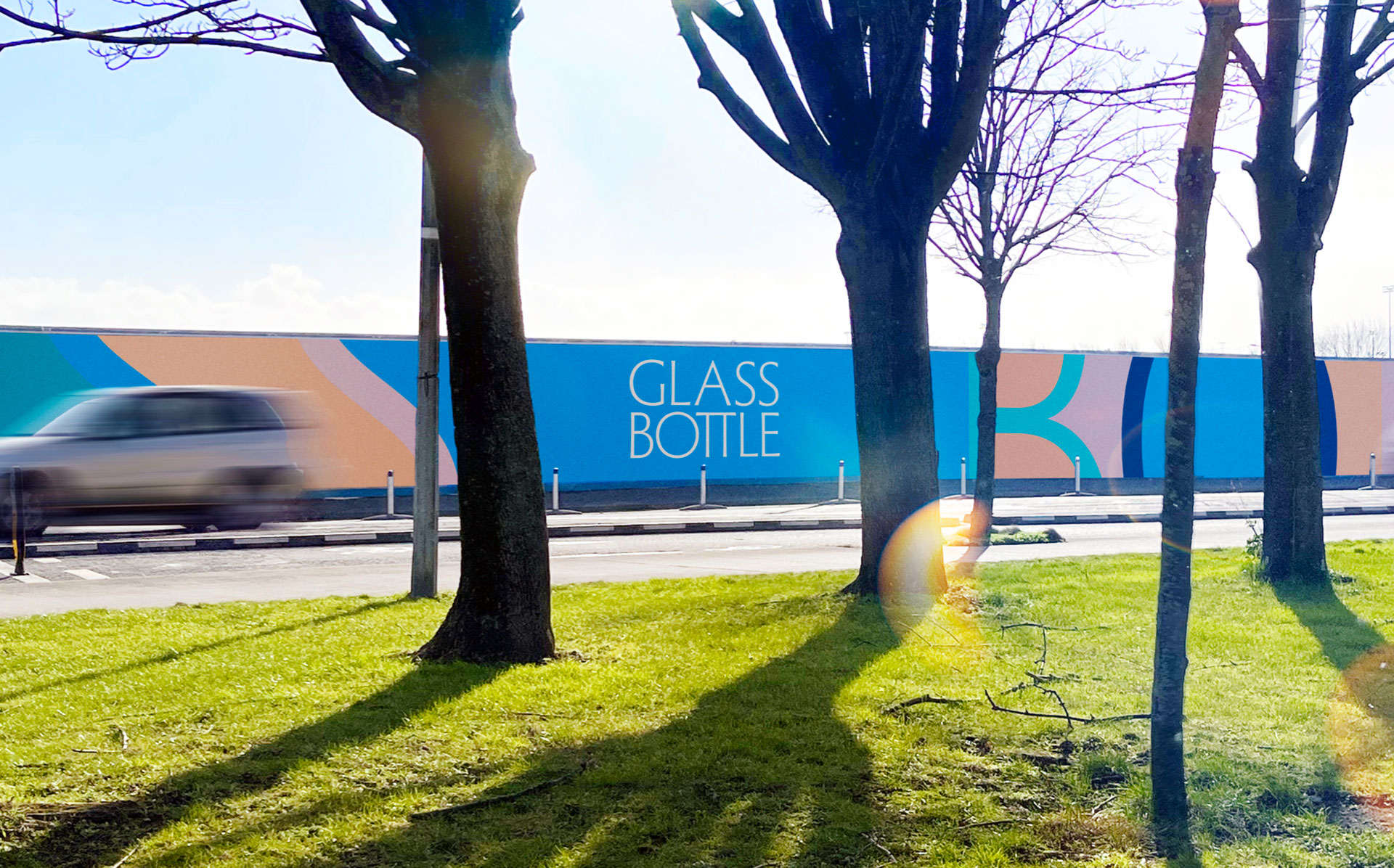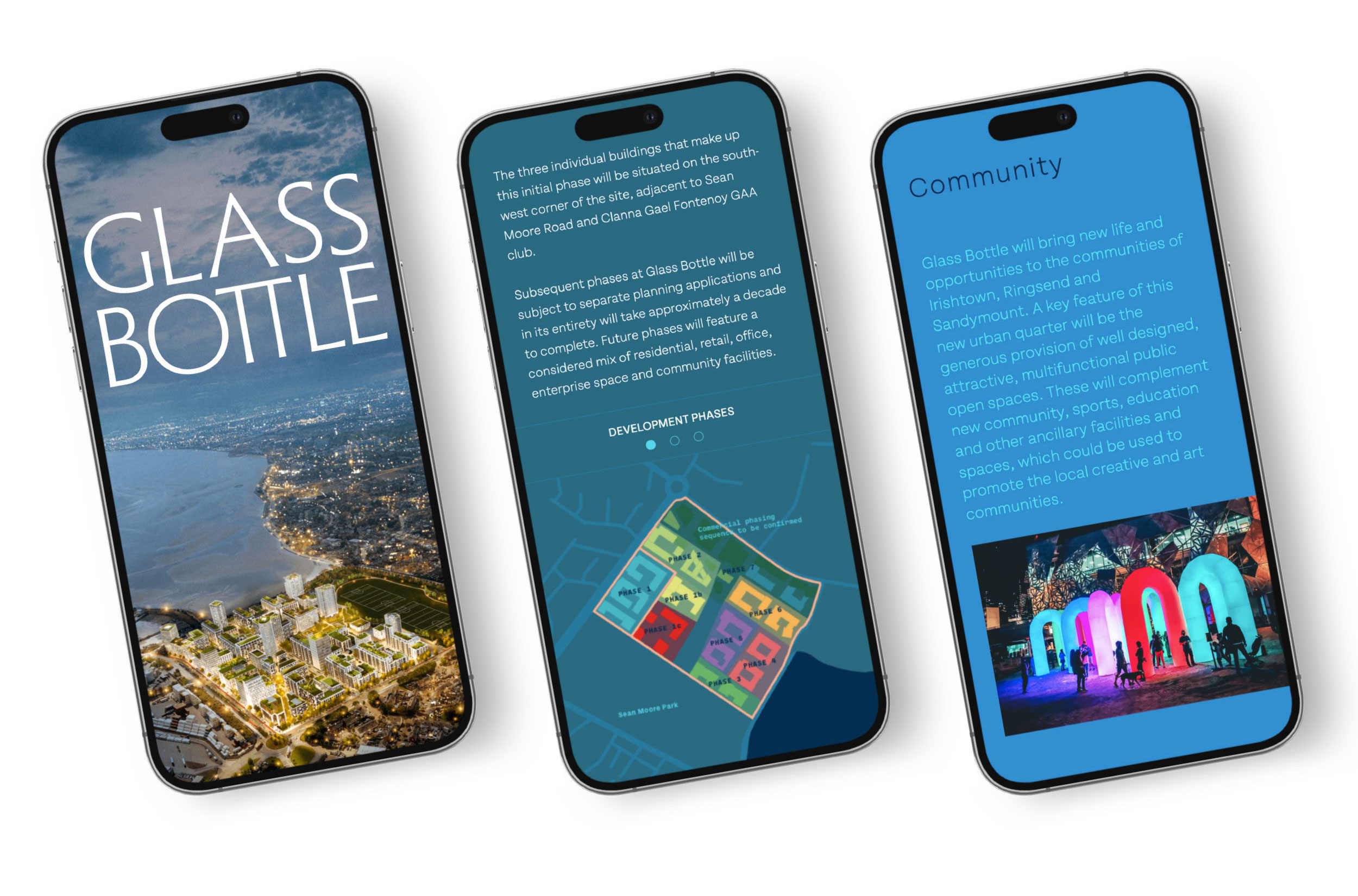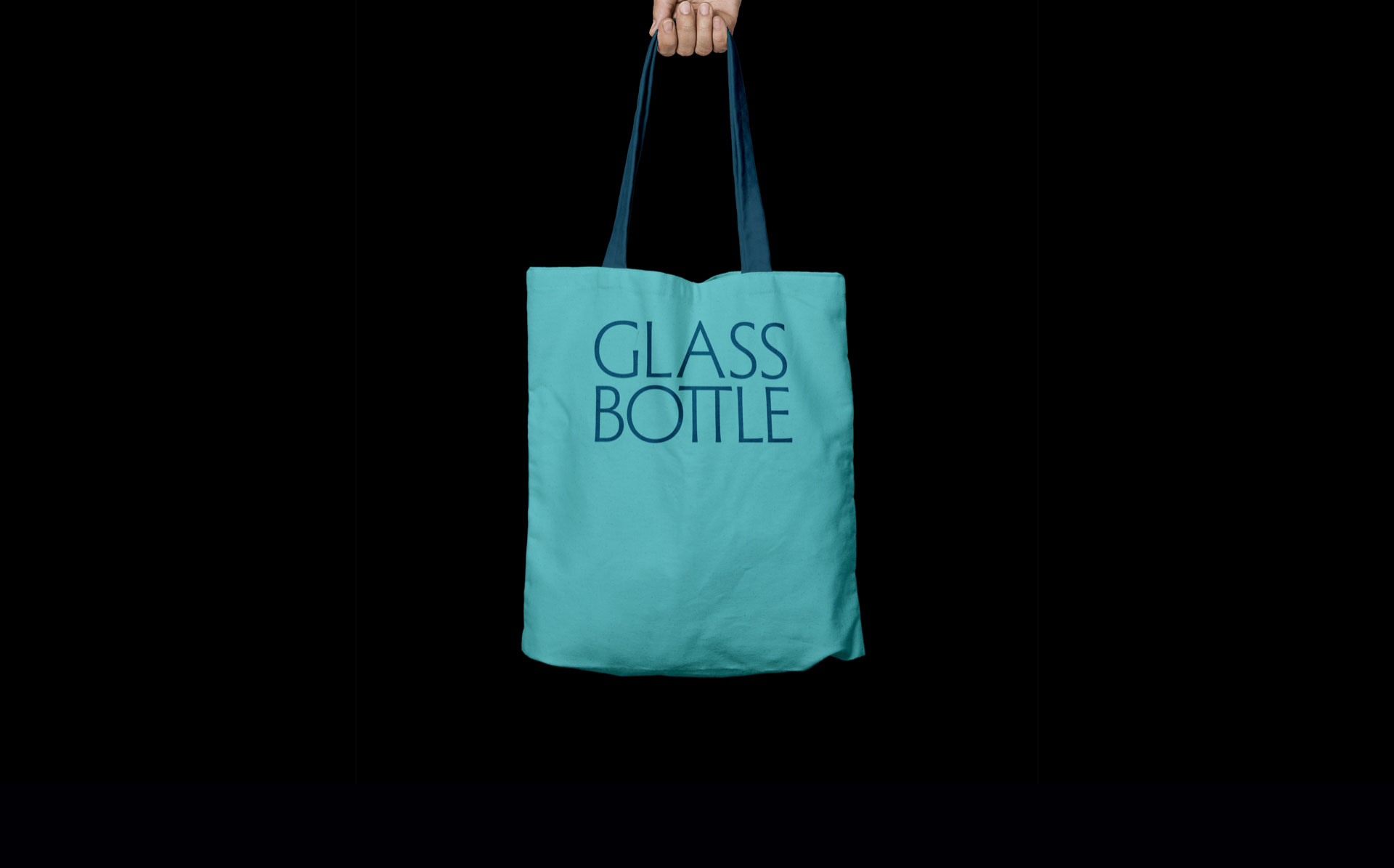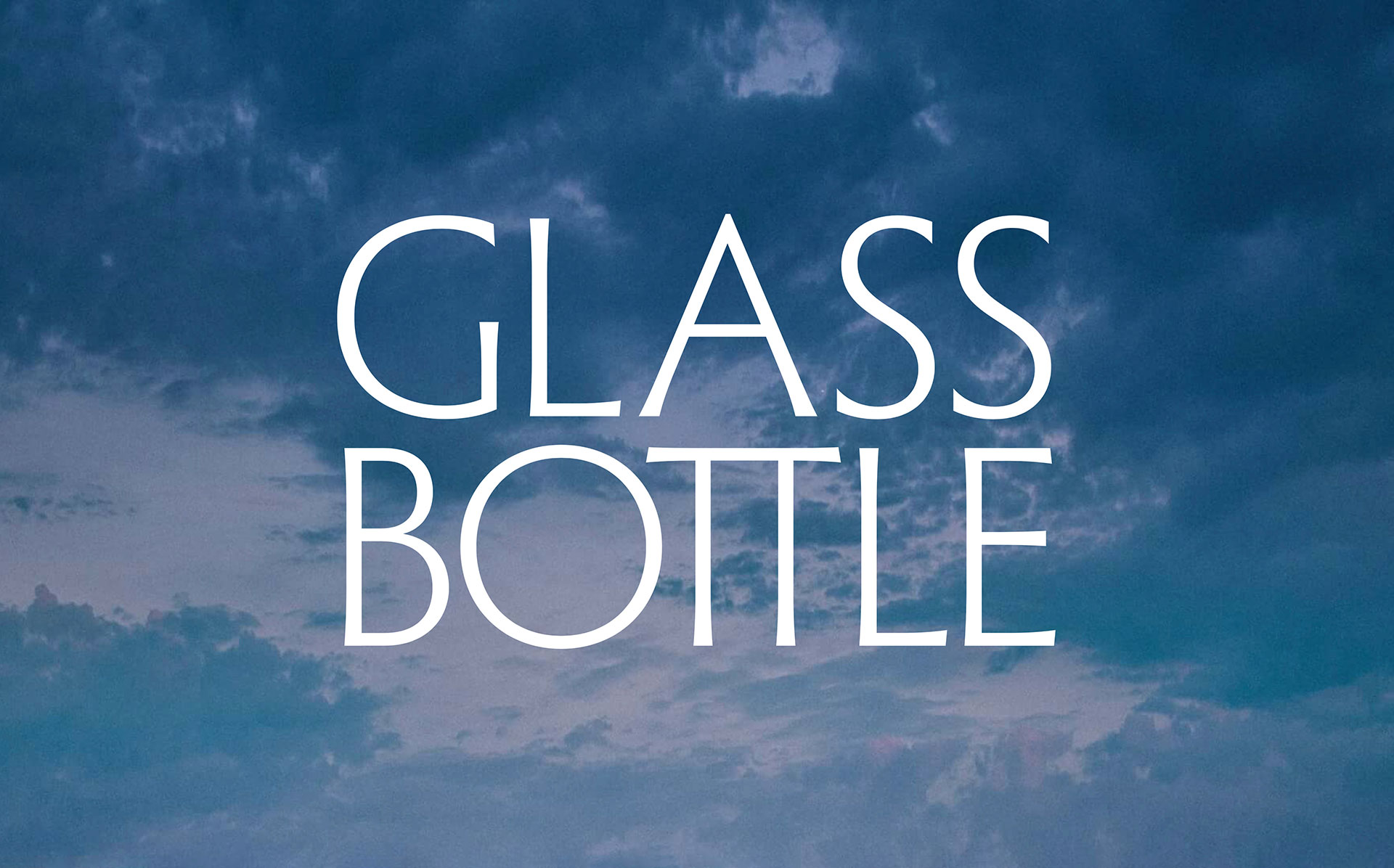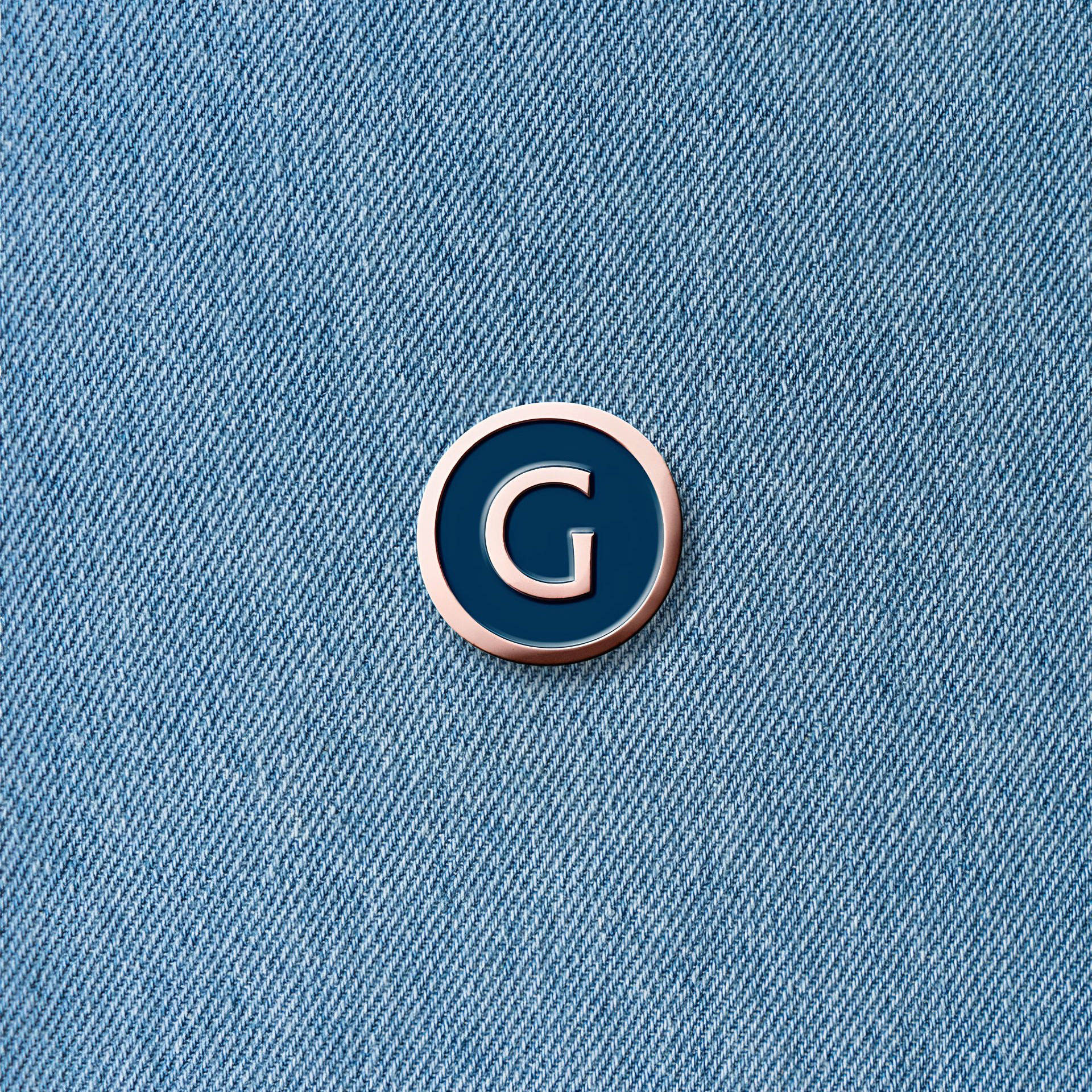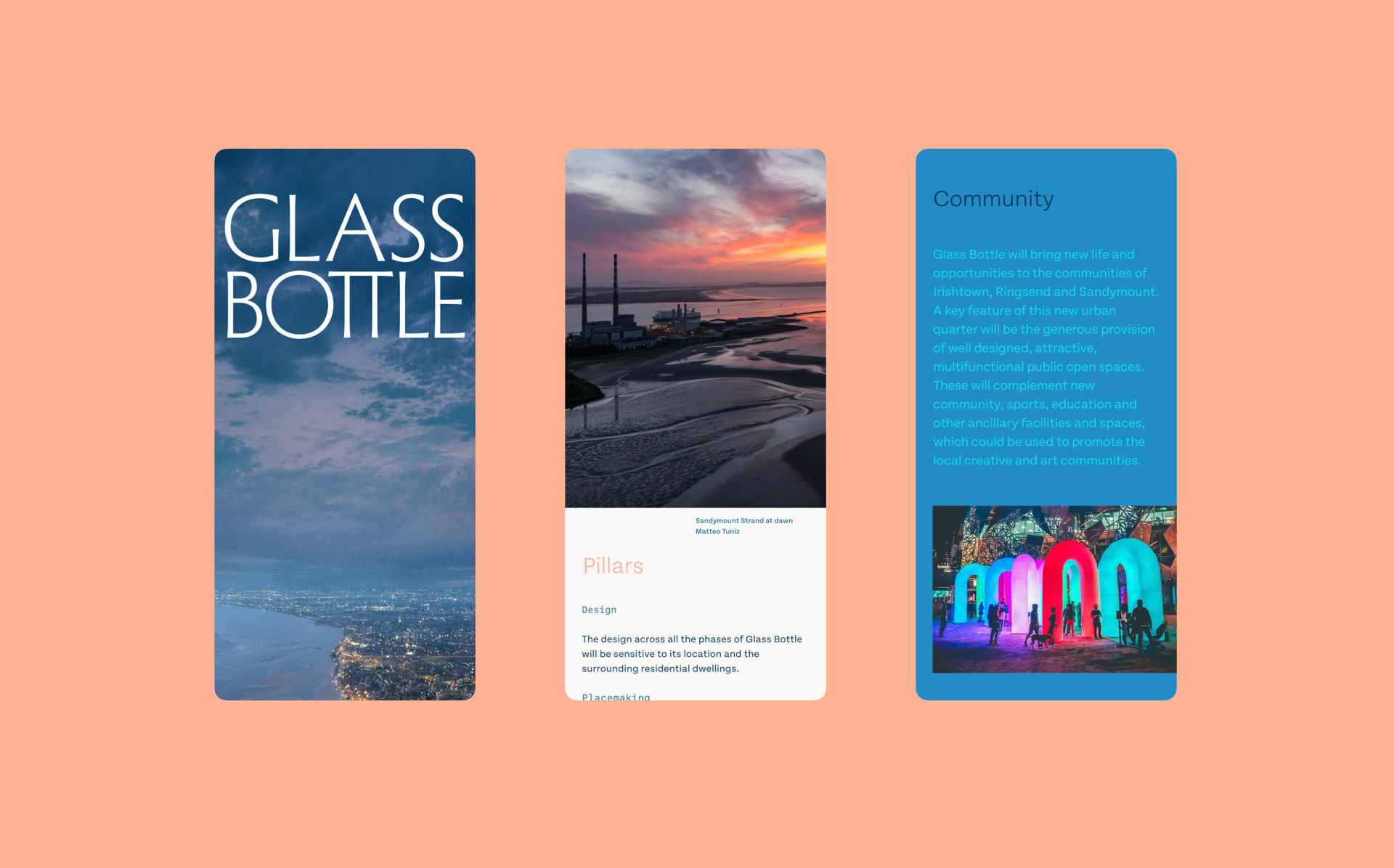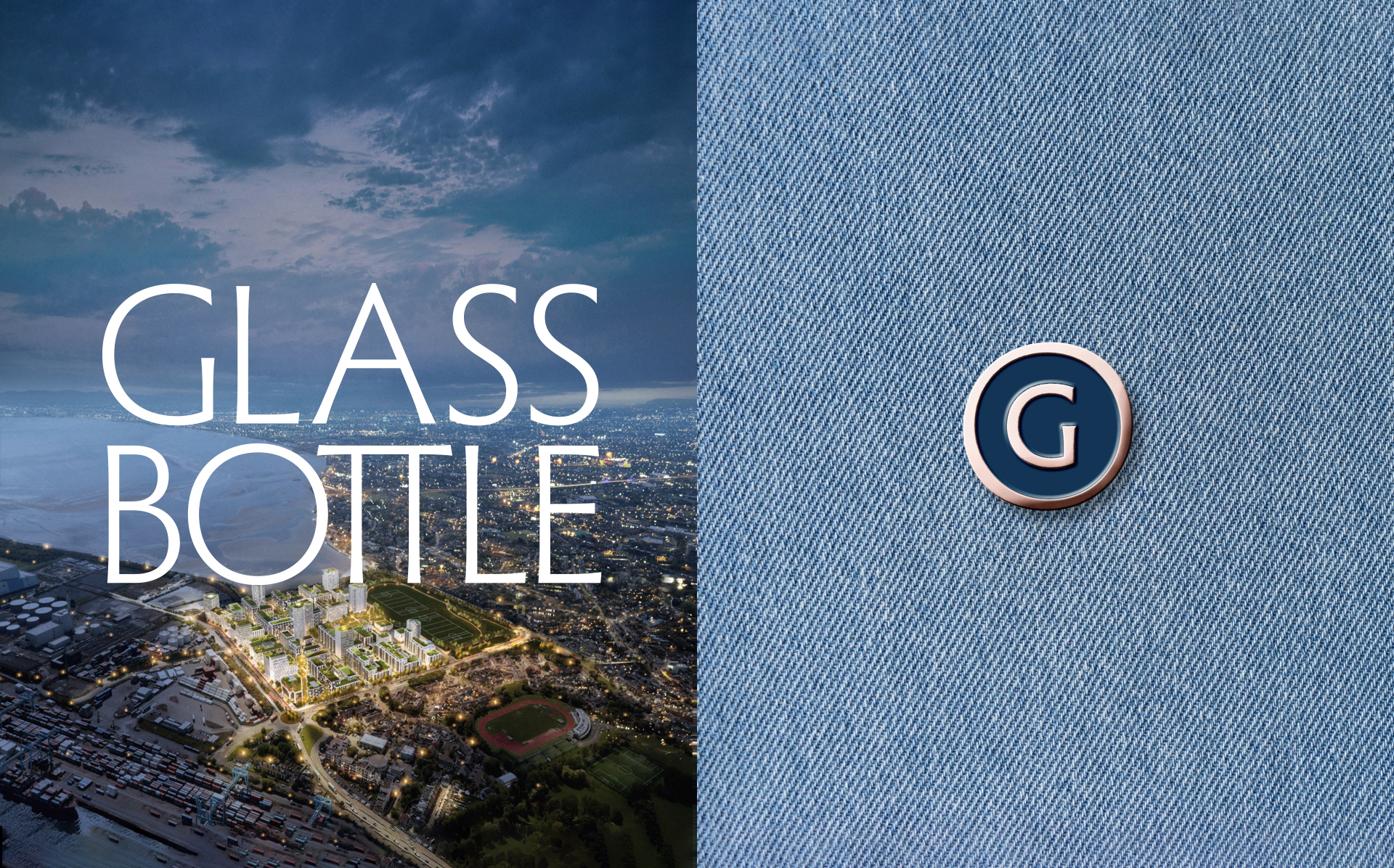
Glass Bottle
Situated on Dublin’s Sandymount Strand at the base of the Poolbeg Peninsula, Glass Bottle is a 15-hectare mixed-use waterfront development on the site of a disused industrial quarter. The Peninsula was reclaimed from the marshes of the Liffey in the 18th century and grew to be a major manufacturing hub, known for brick-making, flour-milling, rope manufacturing, and the famous Irish Glass Bottle factory, at the time one of the most modern in Europe.
The irregular circle enclosing the G icon recalls the bottoms of the hand-cast bottles of the factory’s early days. Development plans call for the sustainable, low-carbon construction of offices, hotels, cultural and community spaces, and shops, as well as market-rate, social, and affordable housing. The type system features our Tenon and Ballinger Mono typefaces. Branding, web, and signage by David Wall at McCann.